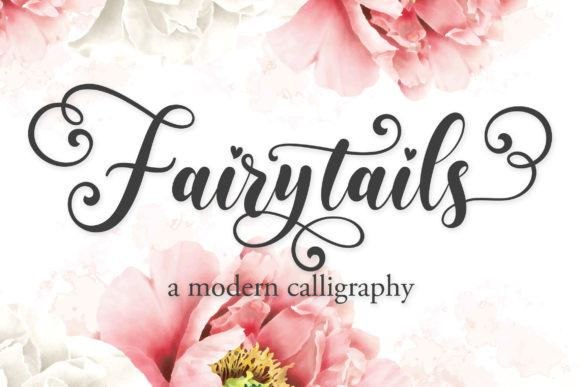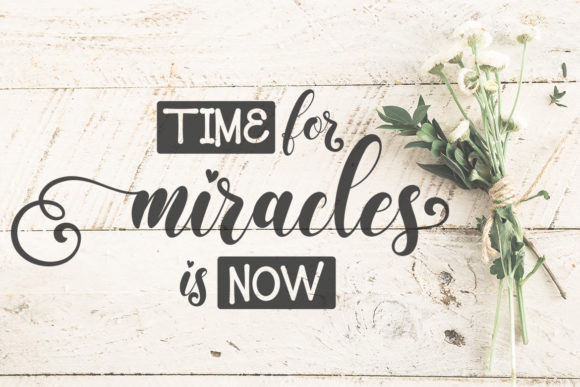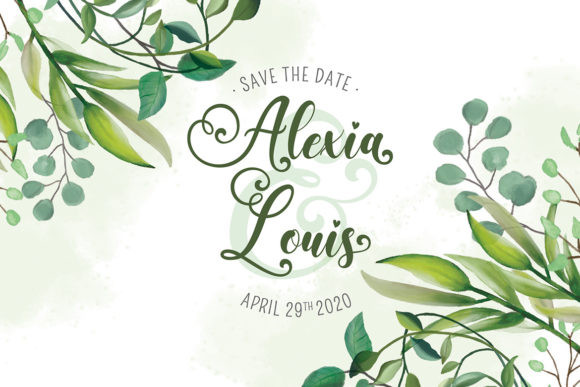
Fairytails Font
Fairytails is an elegant and modern handwritten font with an incredibly luxurious feel. Whether you’re looking for fonts for Instagram or calligraphy scripts for DIY projects, Fairytails will turn any creative idea into a true piece of art!